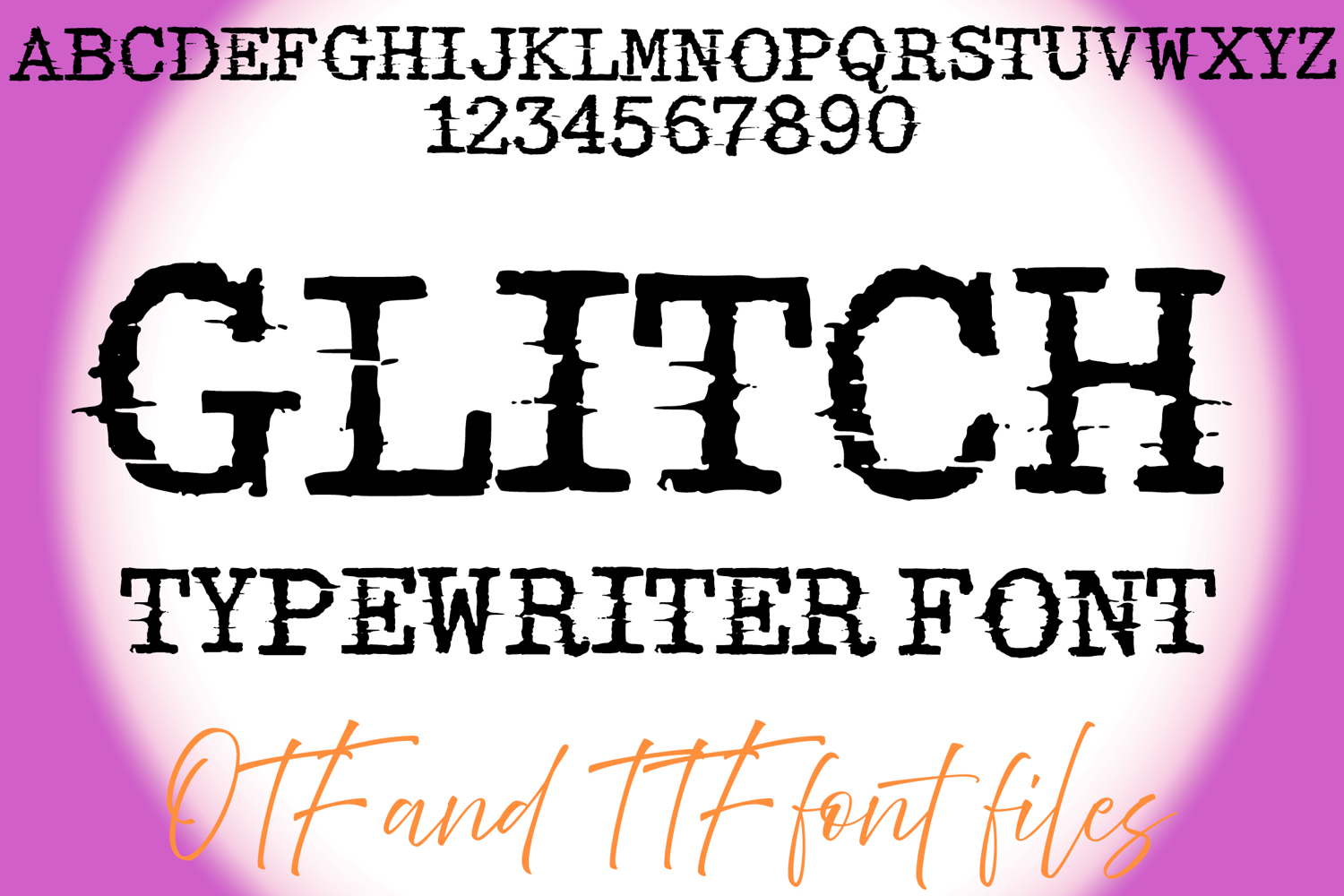
Glitch Typewriter Alphabet Lettering ABC Text Font Distressed Typeface OTF IllustrationÂ
A distressed font where you can create your own words and colour them to your vision!